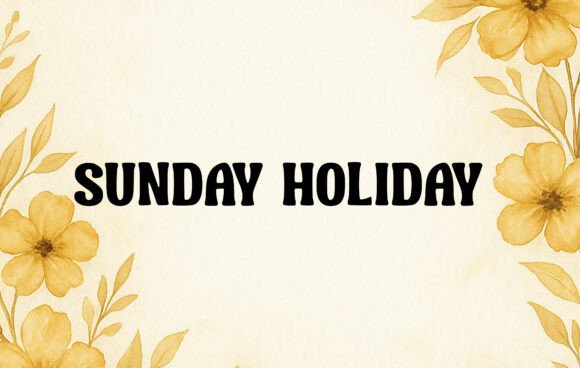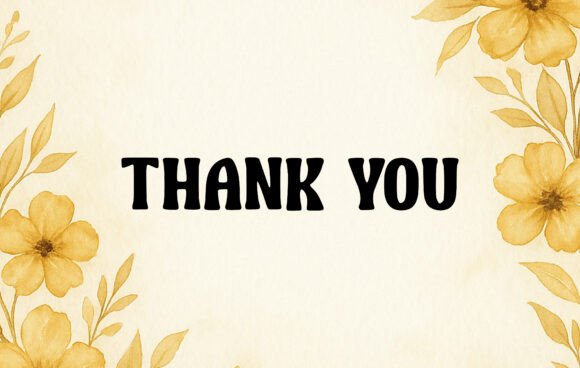
Introduction to Sitar Font
Remember the thrill of stumbling upon a hidden treasure in your grandfather’s attic? You rummage through old trunks, dusty boxes, and faded photographs, and suddenly, you discover a vintage record, a groovy poster, or a retro magazine that sparks your creativity. That’s the magic of uncovering a design gem that’s been waiting to be rediscovered.
One such gem is the Sitar Font, a bold, expressive retro display font that exudes vintage charm and playful confidence. This high-quality font is a design resource that’s perfect for creative projects, from logos and posters to product packaging and social media graphics.
With its thick, rounded letterforms and soft, sculpted presence, the Sitar Font delivers a strong visual impact that’s both fun and approachable. Whether you’re working on a retro revival design or seeking a bold, unique voice for your project, this font is a standout choice that’s sure to groove in all the right ways.
Key Features of Sitar Font
- Unique, high-quality design for creative projects with a transparent background, allowing for seamless integration with any visual content.
- Features a stunning size of 1024 pixels, offering crisp and clear display at various resolutions.
- Designed to work perfectly at a resolution of 300 DPI, making it suitable for high-end printing projects.
- Sitar Font is an excellent choice for creative projects requiring a touch of elegance and sophistication.
Honest Review: Sitar Font
I recently stumbled upon the Sitar Font, and I must say, it’s been a game-changer for my creative project. As a designer, I’m always on the lookout for high-quality fonts that can elevate my designs and communicate my message effectively. Sitar Font delivers just that.
Here are some things that work well about the Sitar Font:
- ✨ High-quality design: The Sitar Font is beautifully crafted, with intricate details and a unique style that sets it apart from other fonts.
- ✨ Transparent background: This feature is a lifesaver when working with transparent backgrounds or complex designs.
- ⚠️ Limited font sizes: While the font is beautiful, it’s limited to a few font sizes, which can be restrictive in certain design situations.
- ⚠️ Limited language support: The Sitar Font may not support all languages, which can be a problem for designers working on international projects.
Overall, I’m impressed with the Sitar Font, and I think it’s a great addition to any designer’s toolkit. While it has its limitations, its unique design and high-quality features make it a valuable resource for creative projects.
Tips for Getting the Most Out of Sitar Font
Use Sitar Font in combination with other design elements to create a unique and eye-catching design. Experiment with different font sizes and colors to add depth and interest to your design. Consider using Sitar Font as a headline or title font to draw attention to important information.
Sitar Font is perfect for a variety of creative projects, including social media graphics, presentations, and blog posts. It’s also great for use in design templates, such as brochures, flyers, and business cards. With its high-quality design and transparent background, Sitar Font is a valuable design resource for any designer.